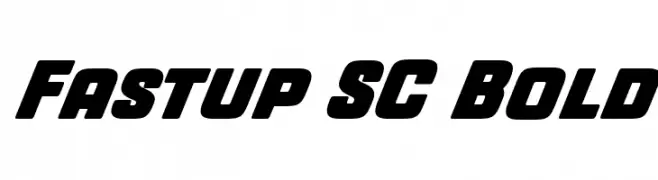
( Fastup Regular and Small Caps is available in two weights (Regular and Bold), geometric design fonts, with a rounded finish on the vertices that provides warmth, with short ascenders and descenders offers a more compact set of letters, the 22° inclination )
A bold, italicized font with a dynamic and sporty style.
( Fastup Regular and Small Caps is available in two weights (Regular and Bold), geometric design fonts, with a rounded finish on the vertices that provides warmth, with short ascenders and descenders offers a more compact set of letters, the 22° inclination )
A bold, slanted font with thick strokes and a dynamic, energetic style.
( Fastup Regular and Small Caps is available in two weights (Regular and Bold), geometric design fonts, with a rounded finish on the vertices that provides warmth, with short ascenders and descenders offers a more compact set of letters, the 22° inclination )
A bold, slanted font with a dynamic and energetic style.
( Fastup Regular and Small Caps is available in two weights (Regular and Bold), geometric design fonts, with a rounded finish on the vertices that provides warmth, with short ascenders and descenders offers a more compact set of letters, the 22° inclination )
A bold, slanted font with a dynamic and energetic style.
A bold, geometric font with a modern and impactful style.
A bold, geometric font with a modern and striking design.